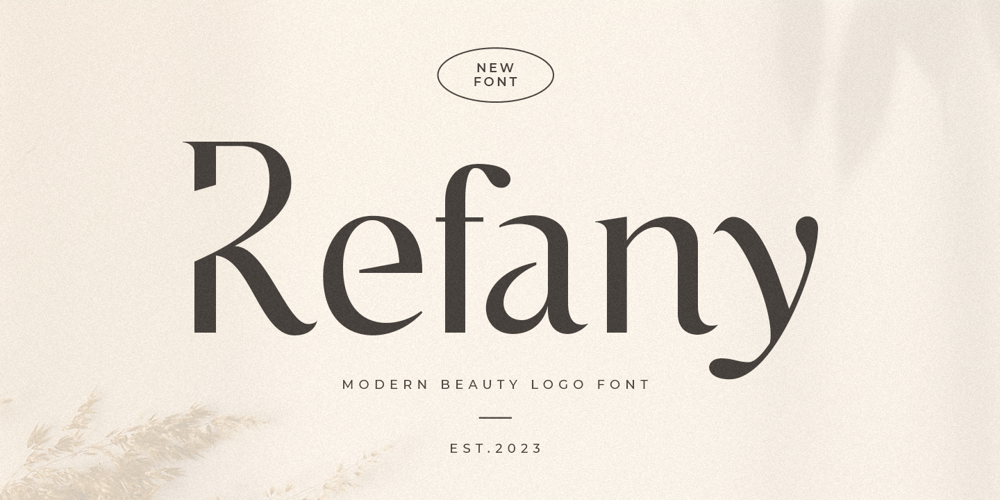
Refany
Refany font
Refany Font Family was designed by Zamroni Hamzah and published by Sensatype Studio. Refany contains 1 styles and family package options. A Serif font that we created special for Luxury Modern branding needs, with unique shape will be ready to add value of your brand. It so nice to leverage designer or product owner that need solutions to make their design look more Luxury and modern. And specially for Refany font, We prepared nice characters to help you create unlimited variations for your creative needs.Refany Luxury Modern Beauty Logo font ready with: Any options to get creative variations 4 format already Preview as a inspirations that you can do with Refany font Ready with Lowercase and Uppercase characters Wish you enjoy our font. 🙂